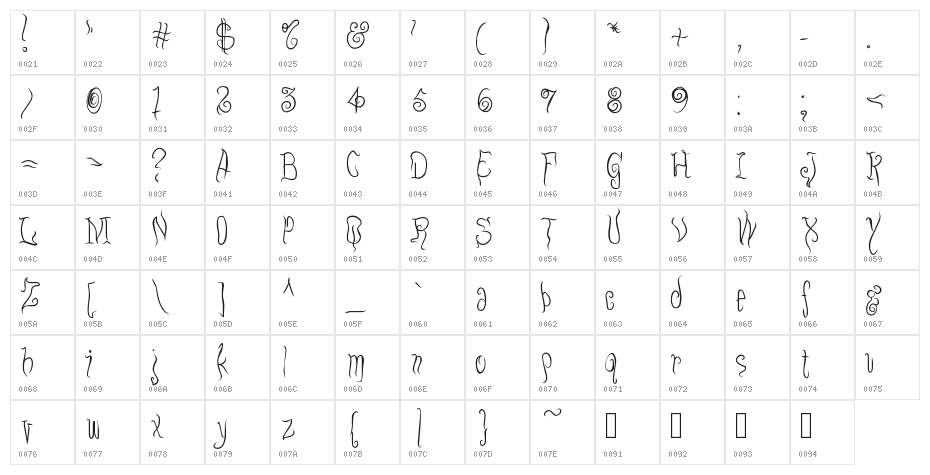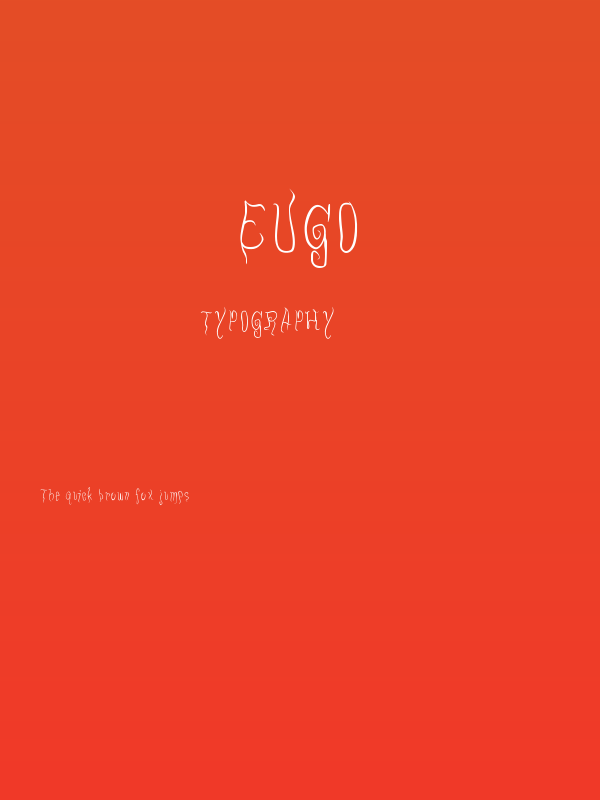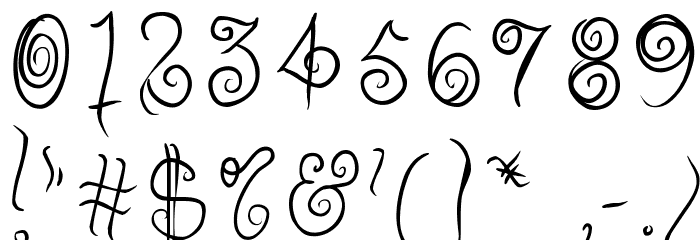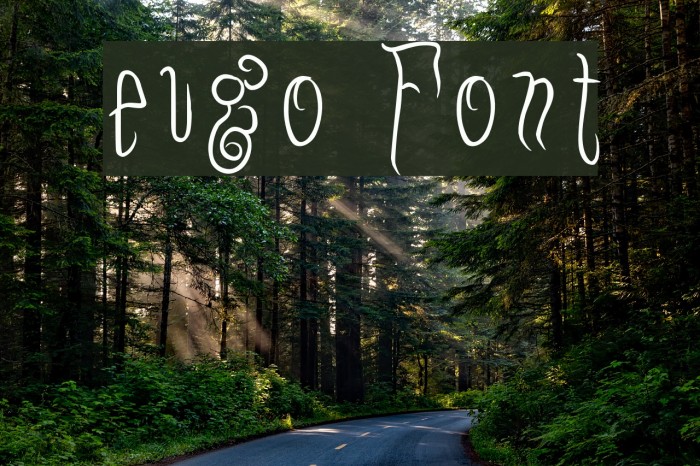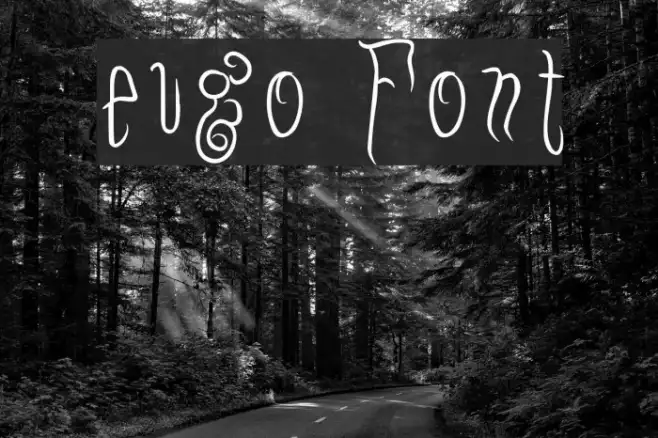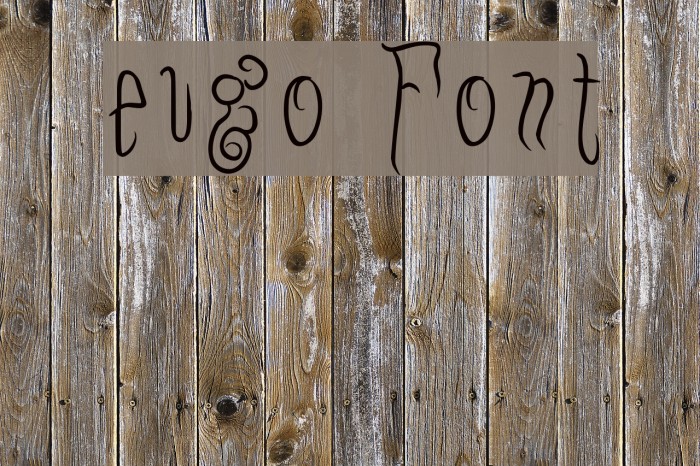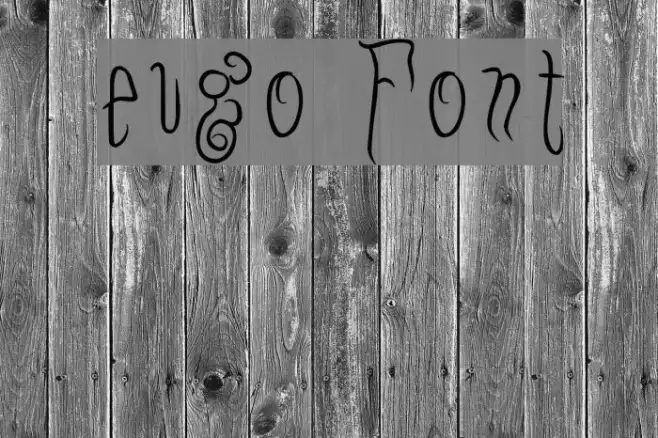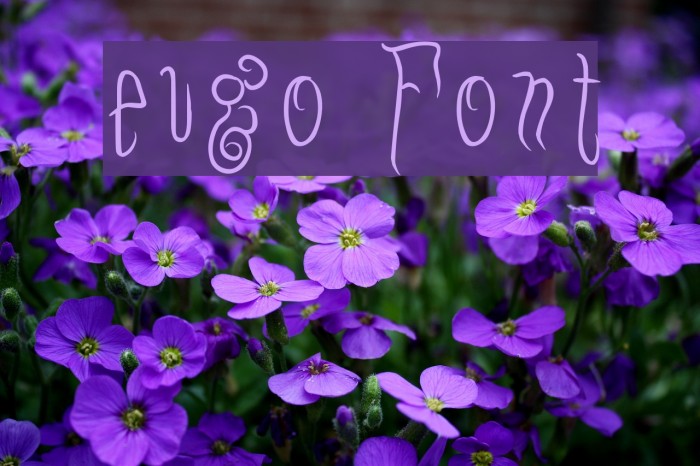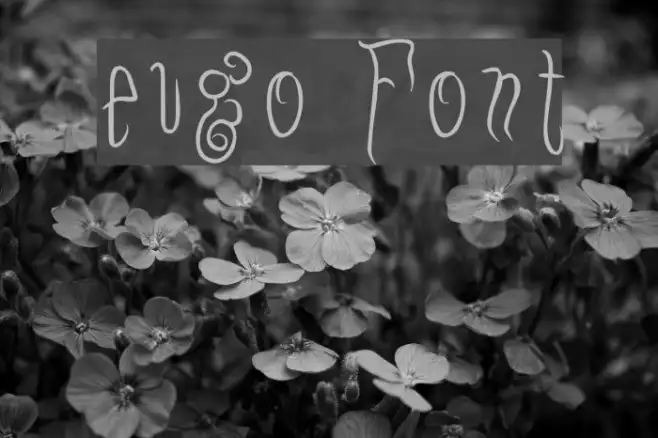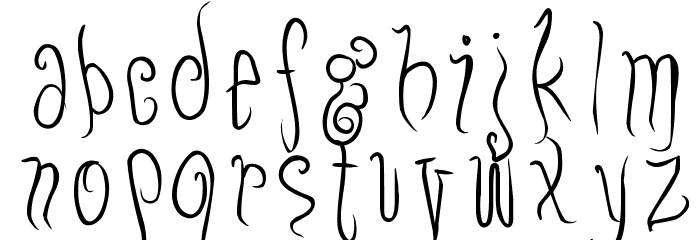
eugo Font
eugo Description
This font exhibits a whimsical and artistic style, characterized by its fluid, curvy lines and playful, almost hand-drawn appearance. The uppercase letters are tall and slender, with exaggerated curves and flourishes that give them a lively and dynamic feel. The lowercase letters maintain this fluidity, with some characters featuring unique loops and swirls that add to the overall charm. The numbers are equally playful, with some digits incorporating spiral elements that enhance the font's decorative nature. Special characters are creatively designed, maintaining the font's artistic theme. This font is ideal for projects that require a touch of creativity and flair, such as invitations, greeting cards, or artistic posters.
| Use Case | Headlines, Artistic projects |
| Proposed Projects | Invitations, greeting cards, artistic posters, creative branding. |